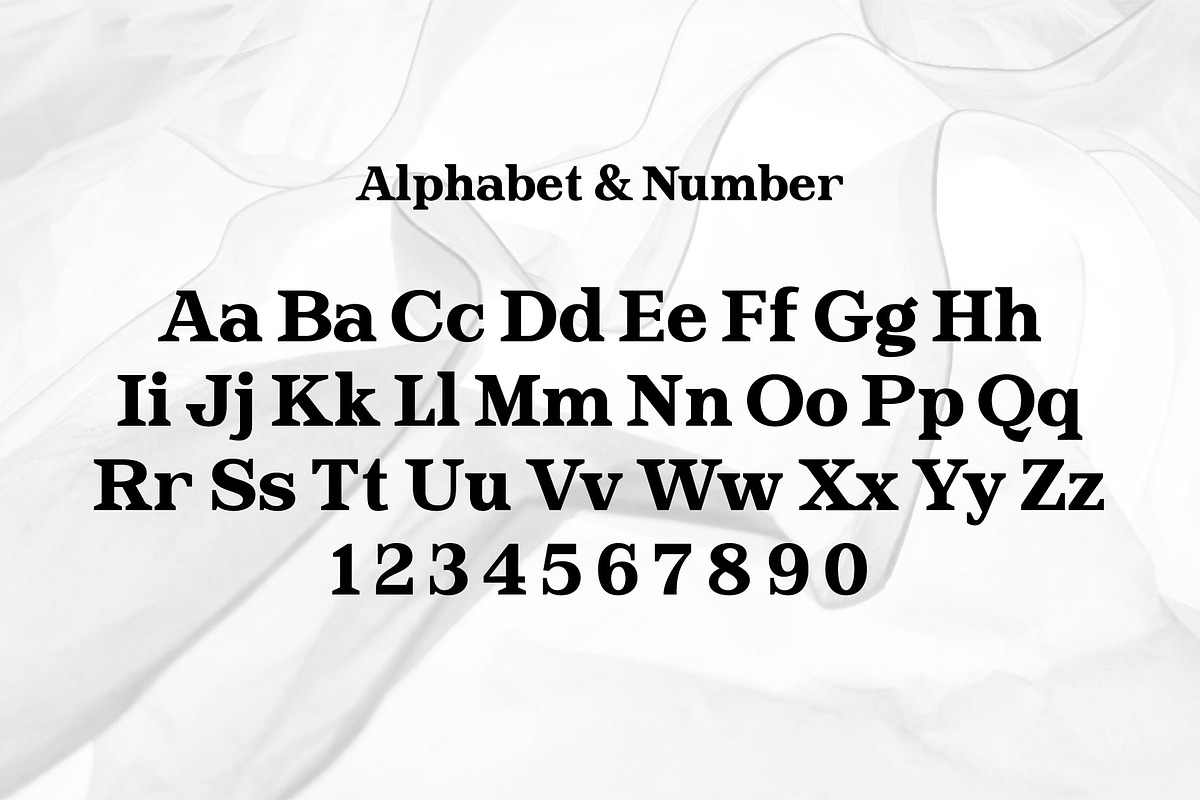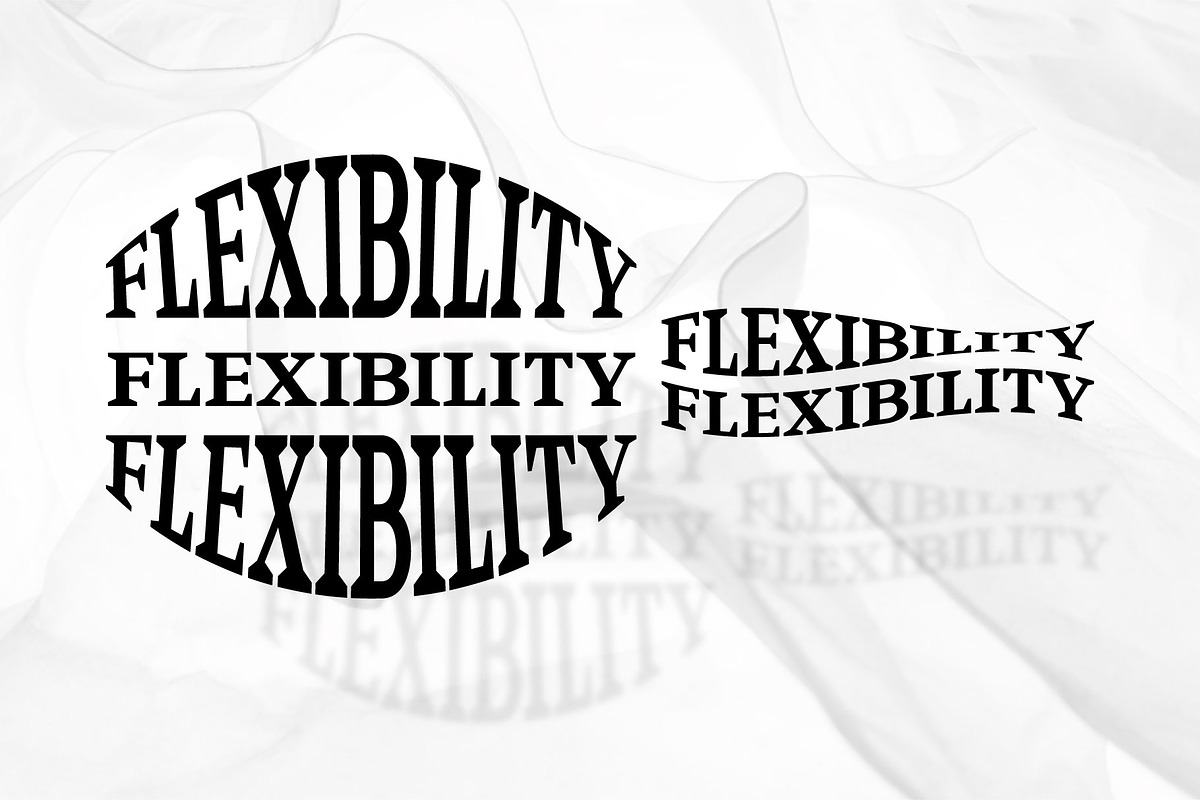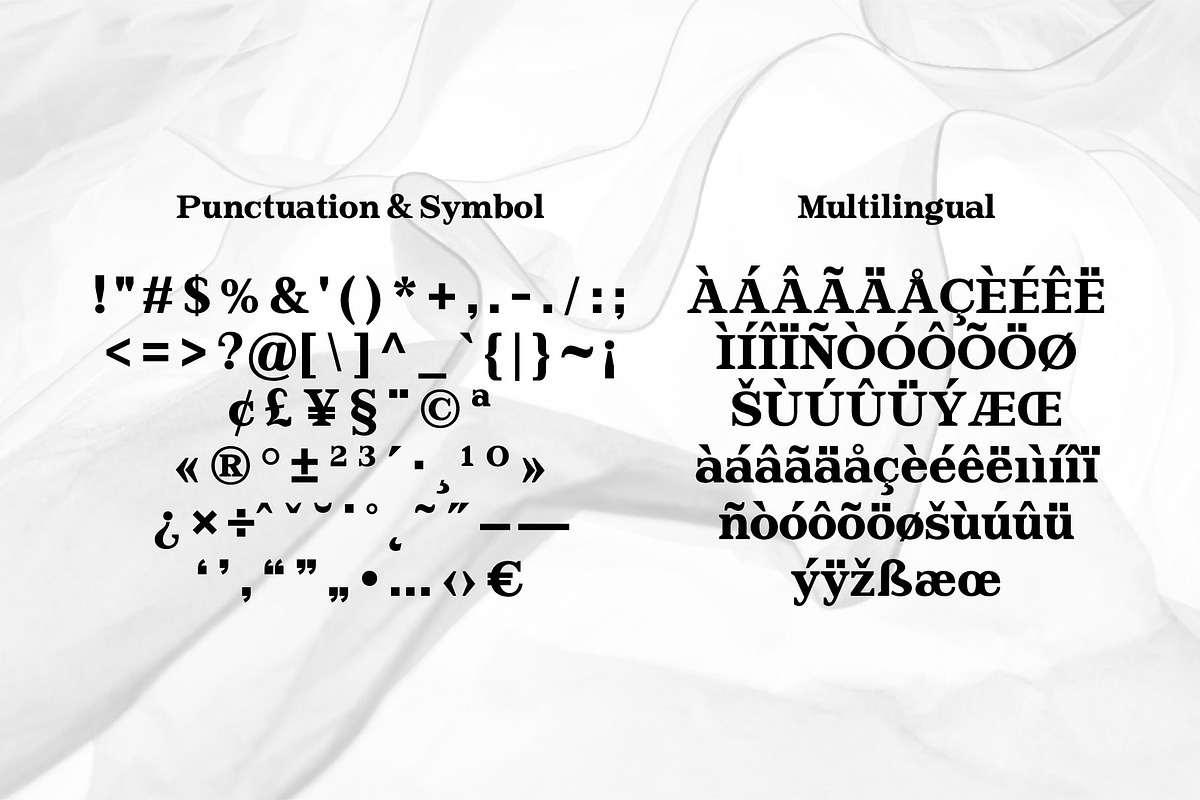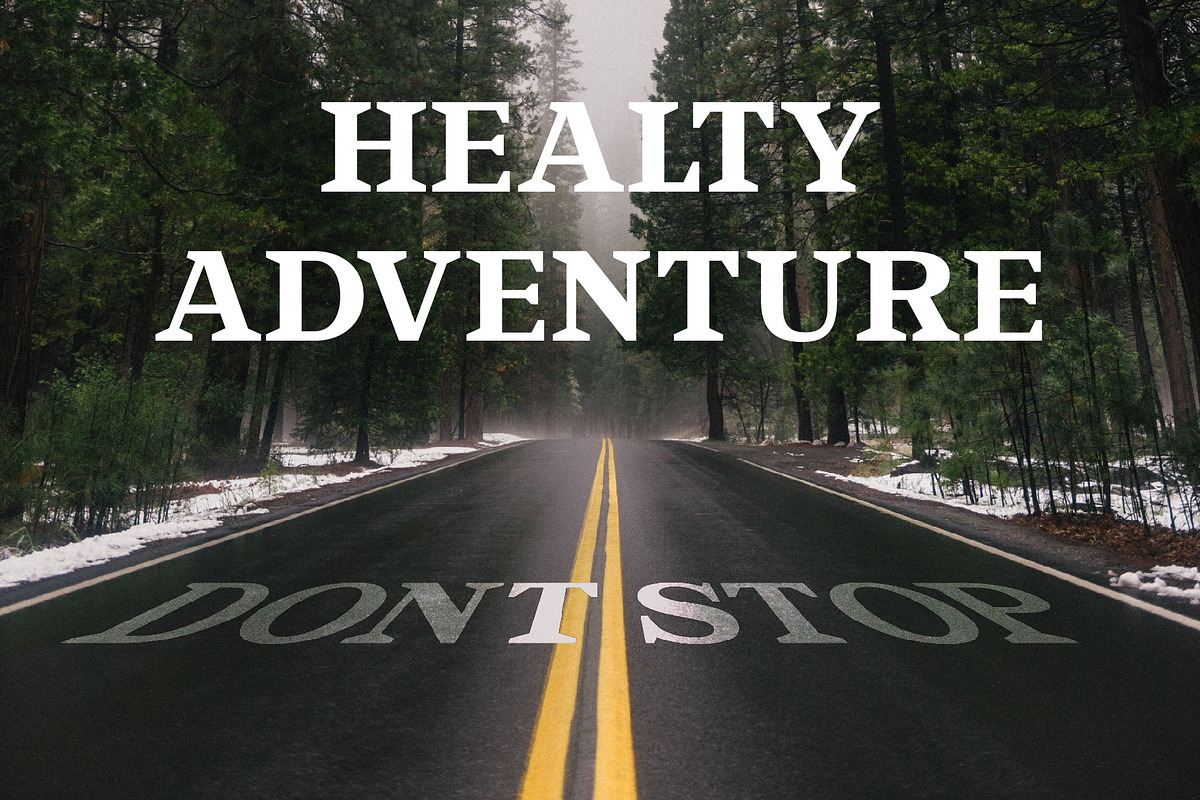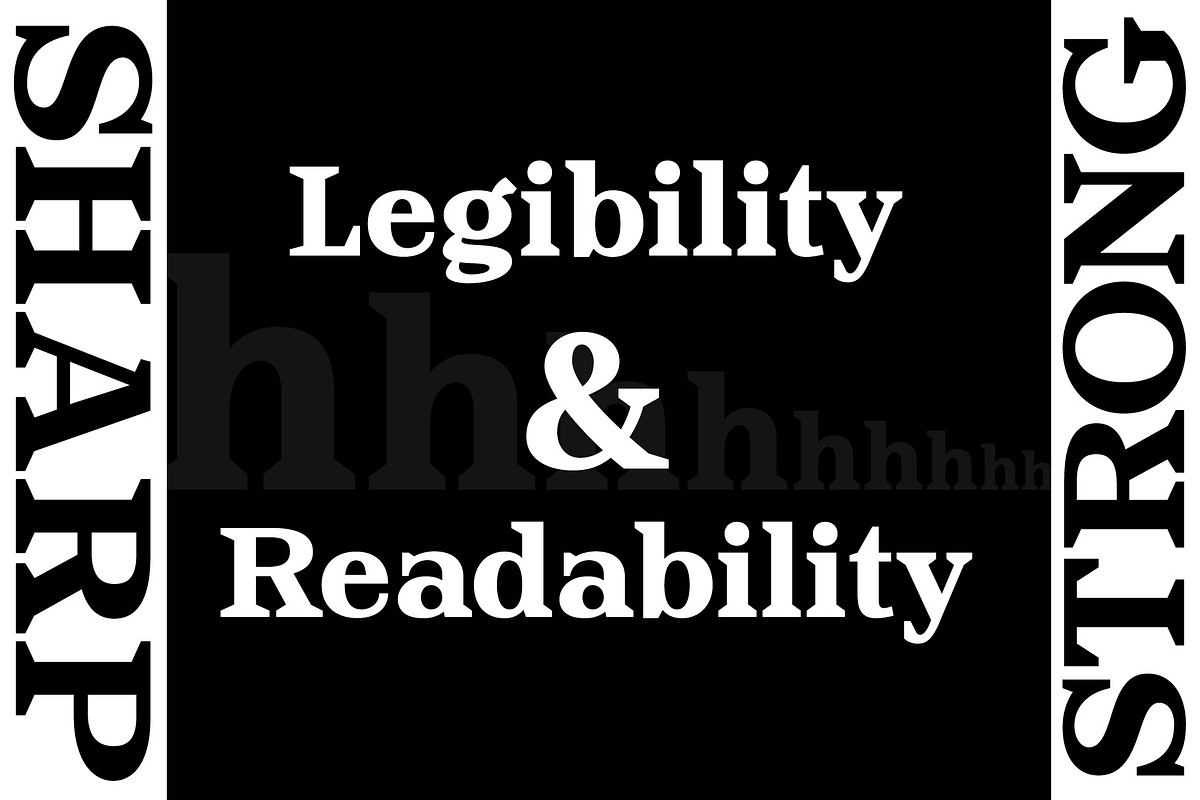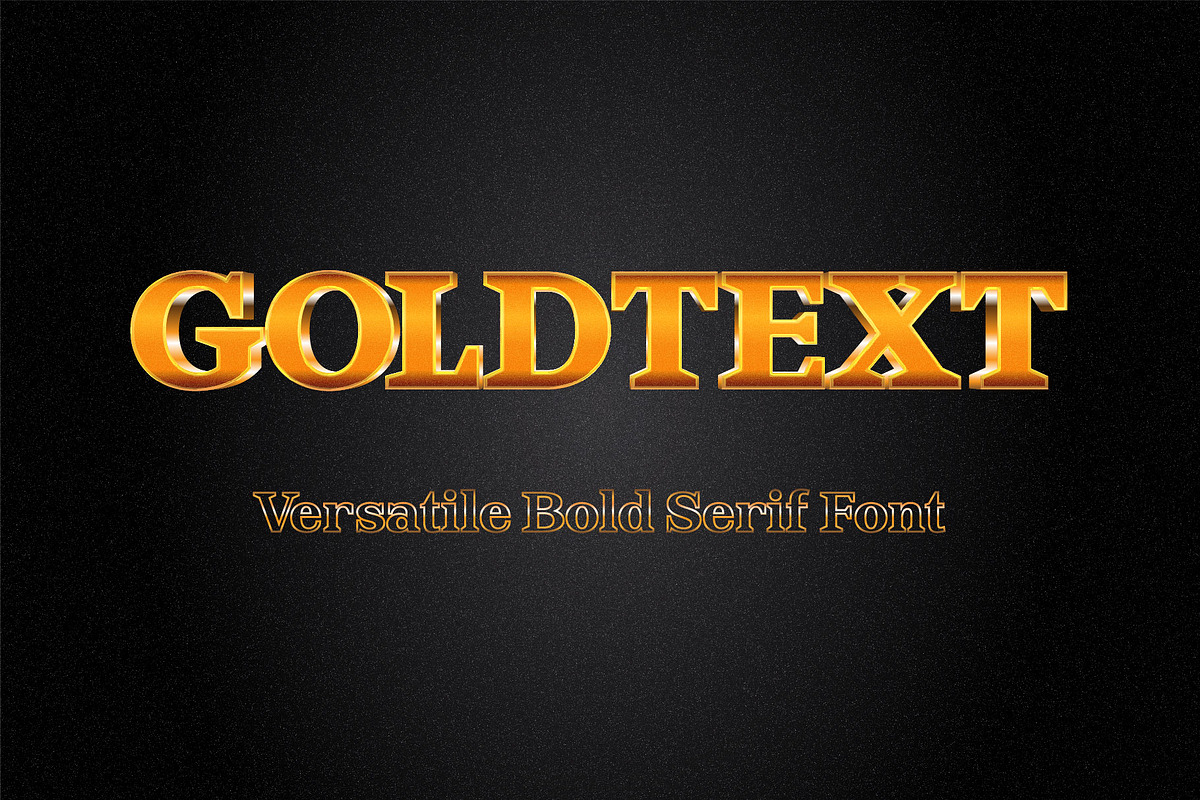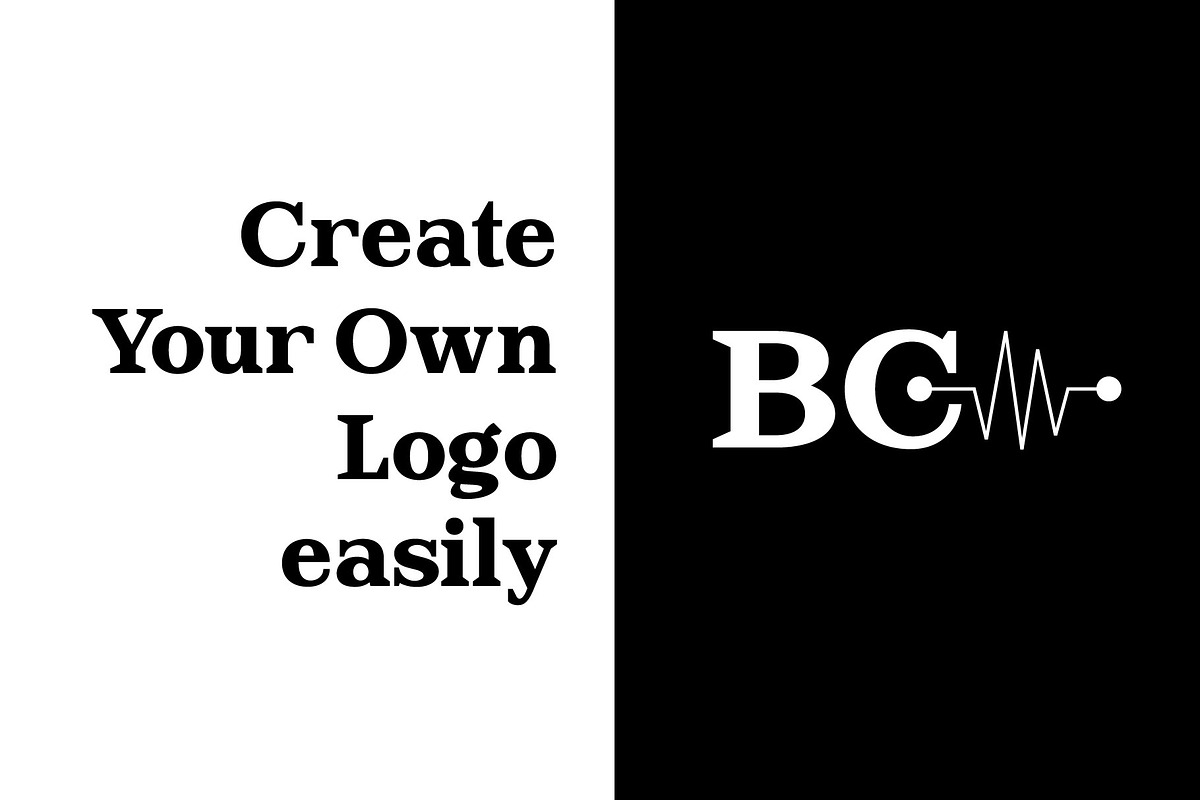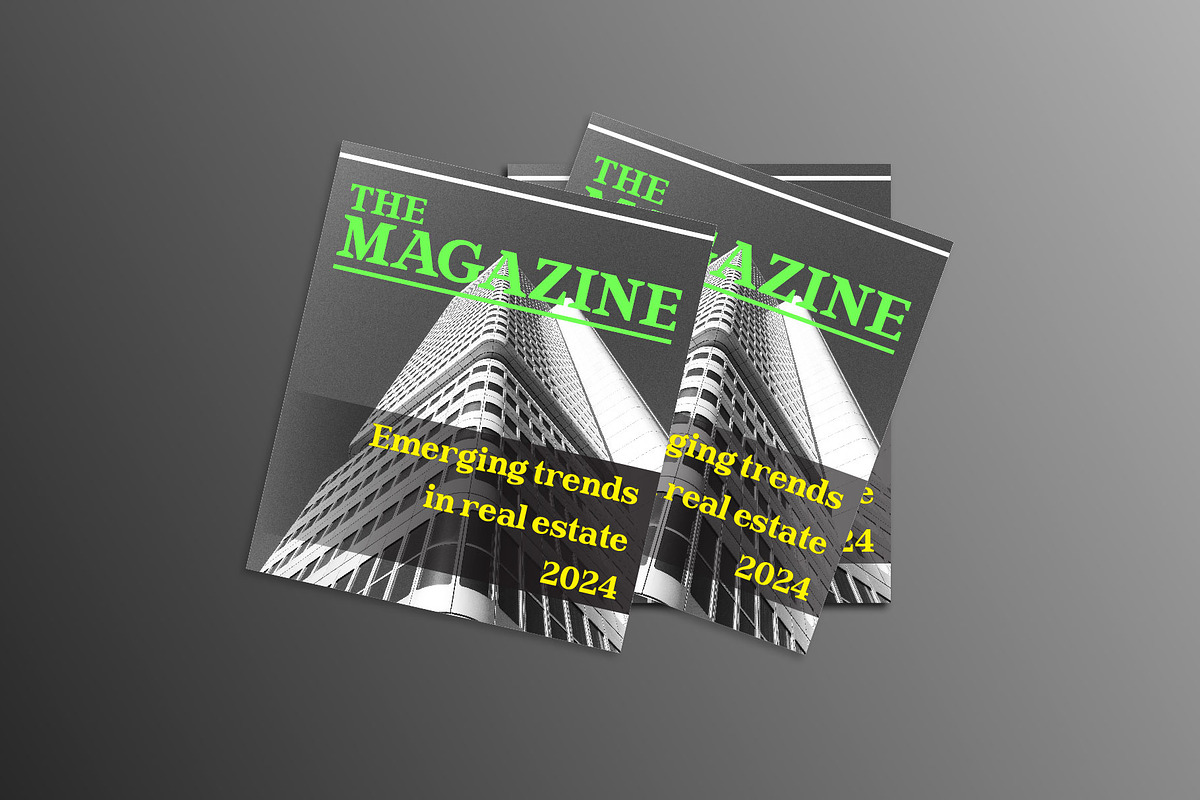
Goldtext - Versatile Bold Serif
If you like being creative with bold serif fonts, then the BOLDTEXT font could be your choice. The thick and sharp shape will direct the eye to your special design. A legible letter style will form words that are easy to read.
You can use this font to design logos, titles, magazines, comics, text effects, banners and more. The zip file contains 3 font file formats: OTF, TTF and WOFF.